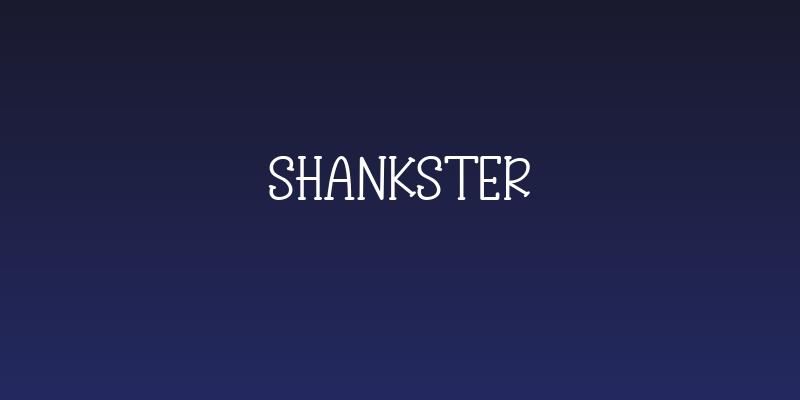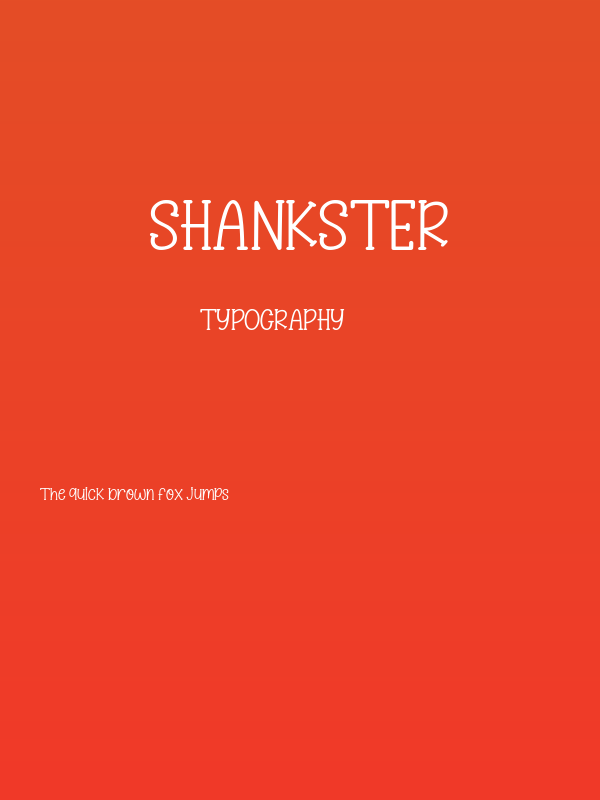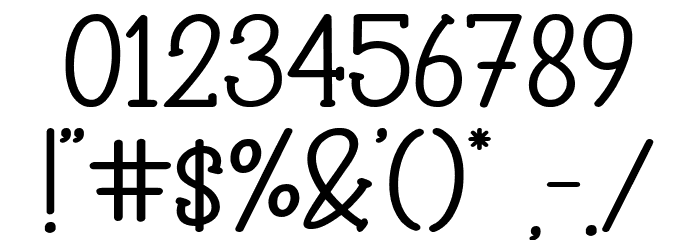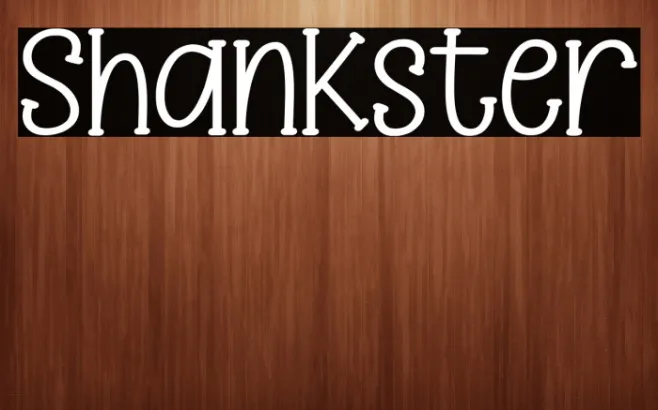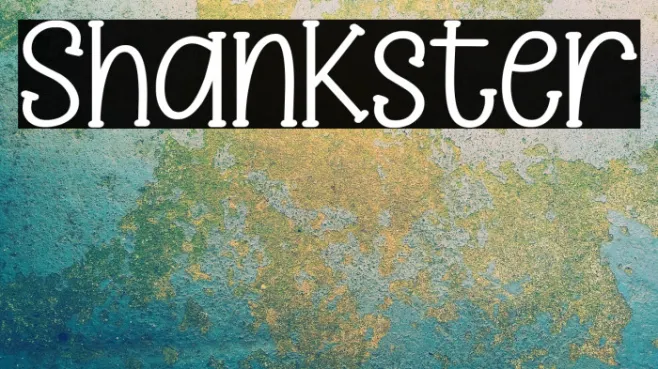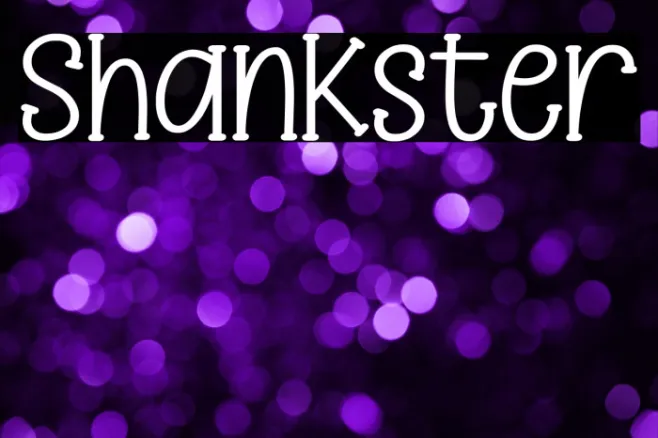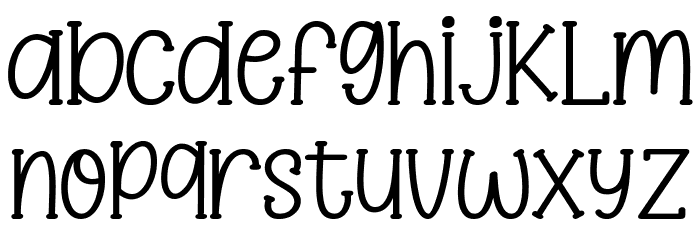
Shankster Font
Shankster Description
This font features a playful and whimsical style with a handwritten appearance. The characters are rounded and slightly irregular, giving them a casual and friendly feel. The uppercase letters are tall and narrow, while the lowercase letters maintain a consistent height with gentle curves. The numbers are bold and easy to read, and the special characters are designed to match the overall playful aesthetic. This font is suitable for projects that require a touch of fun and creativity, such as children's books, greeting cards, or playful branding.
| Proposed Projects | Ideal for children's books, greeting cards, playful branding, and creative invitations. |